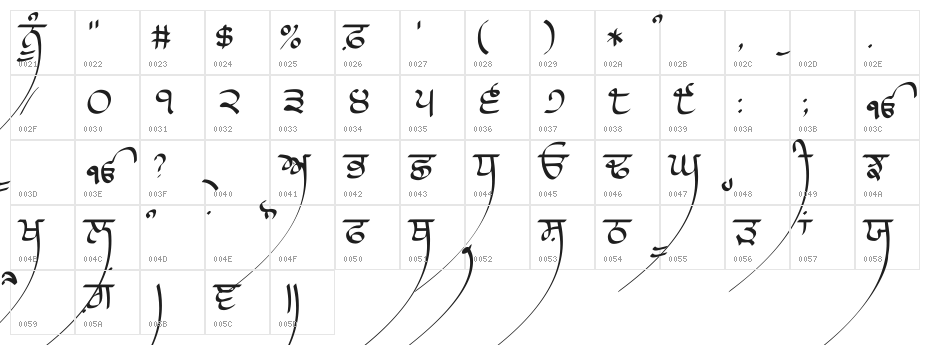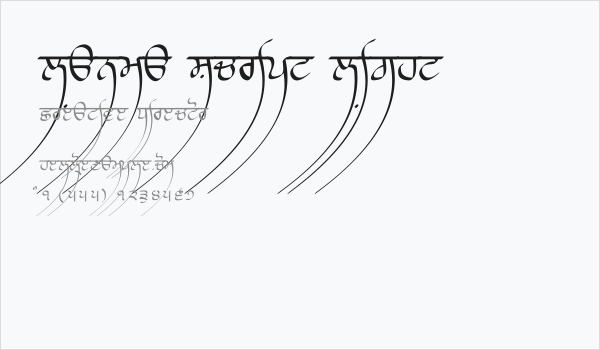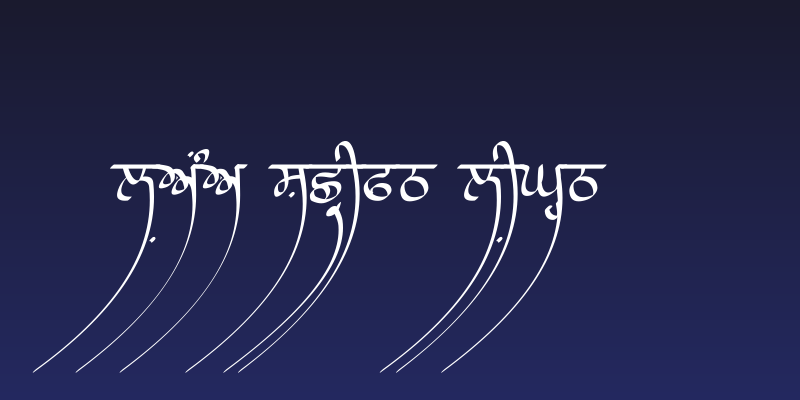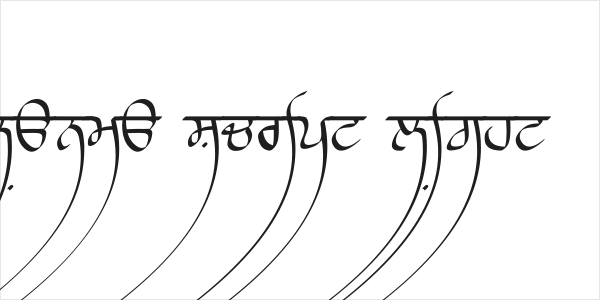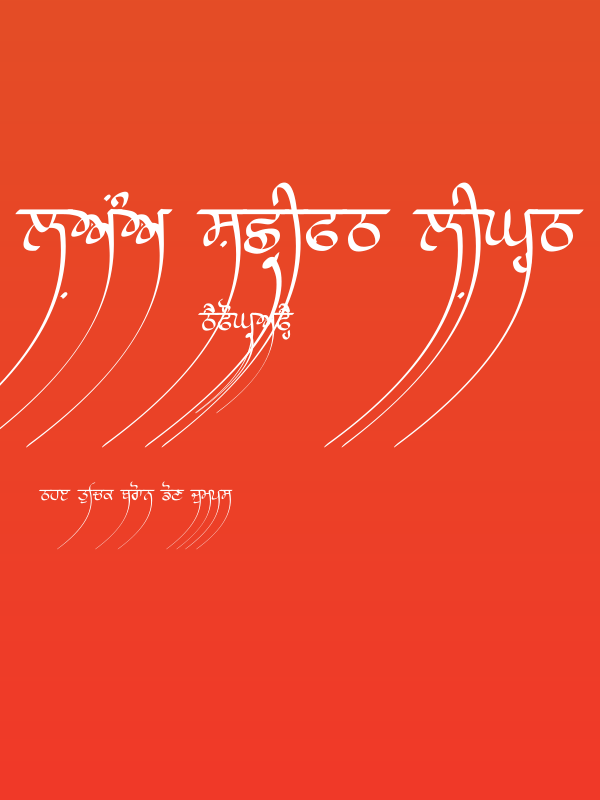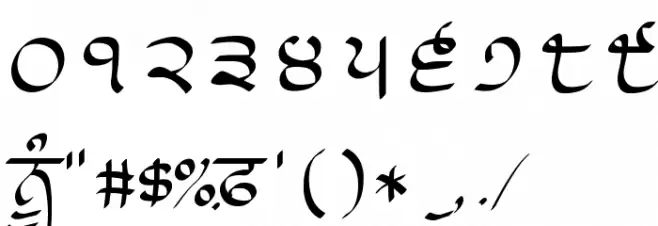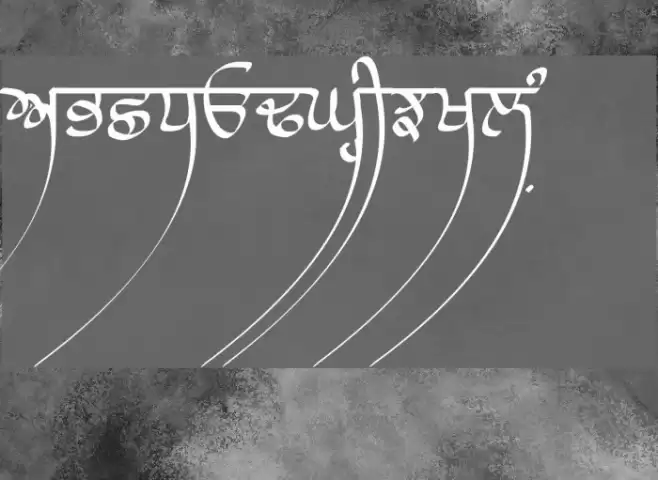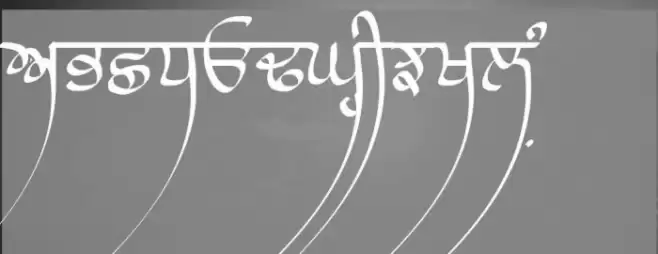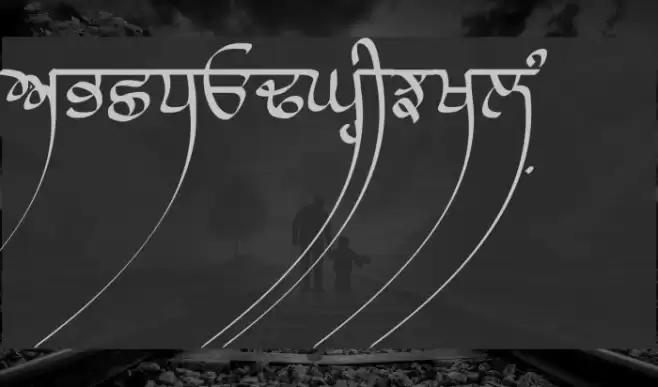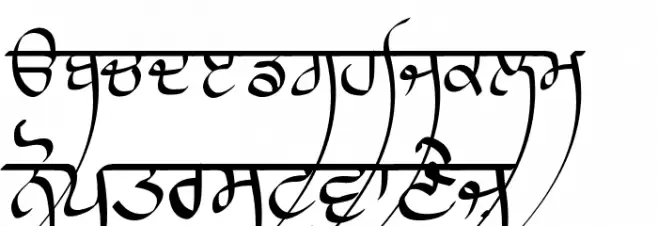
Lanma Script Light Font
| ウェイト | Medium Script |
| 全体的なスタイル | Elegant and Artistic |
| 用途 | Decorative text, Invitations, Artistic projects |
| おすすめプロジェクト | Ideal for wedding invitations, greeting cards, artistic projects, and branding materials that require a touch of elegance. |